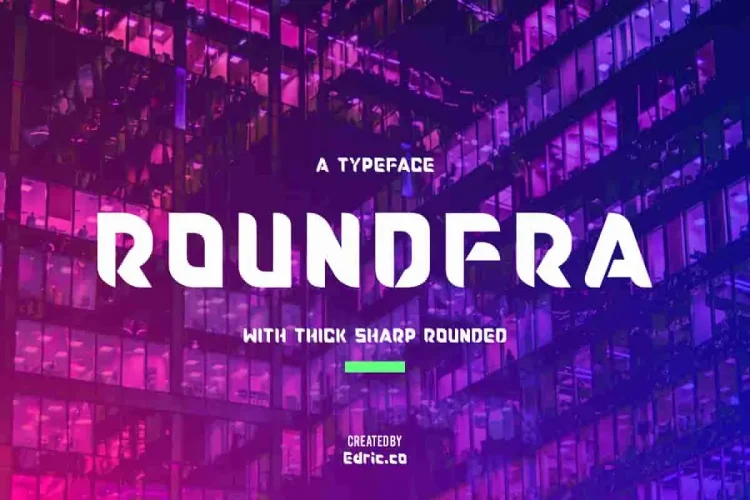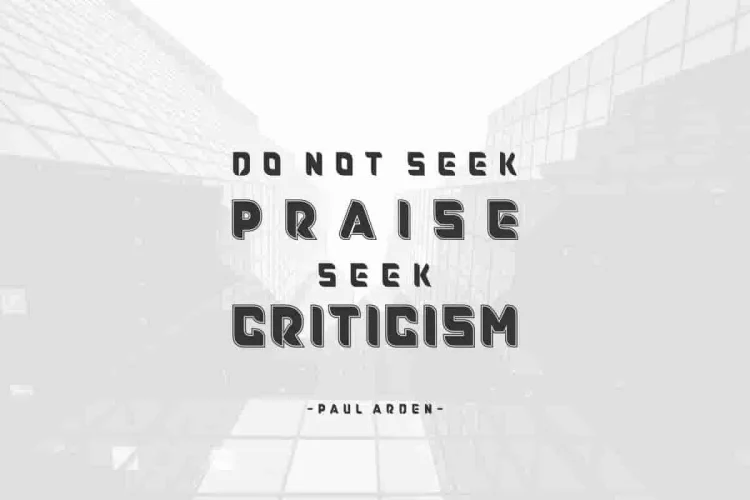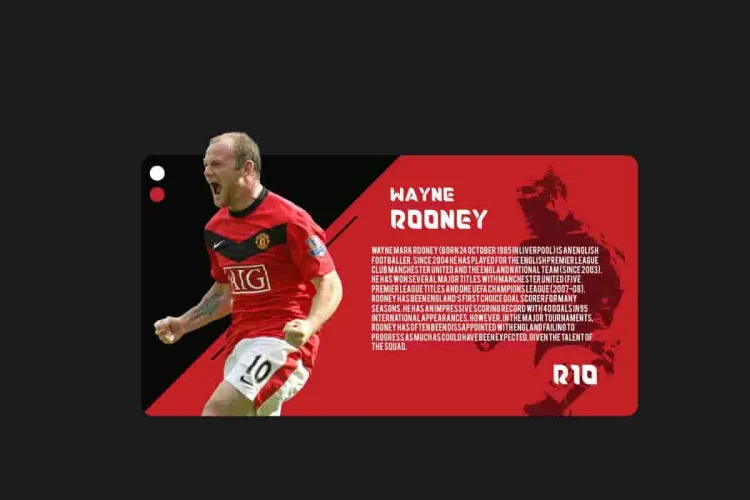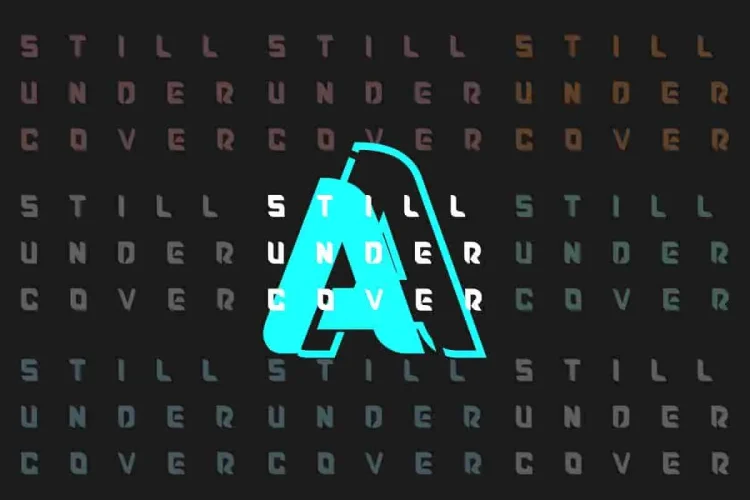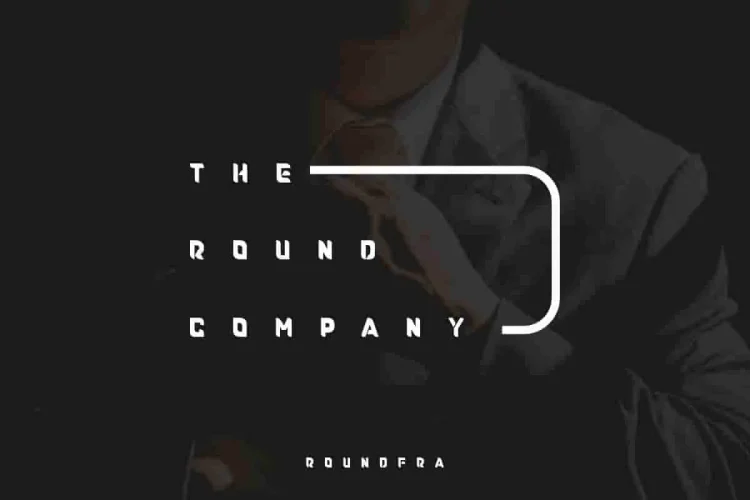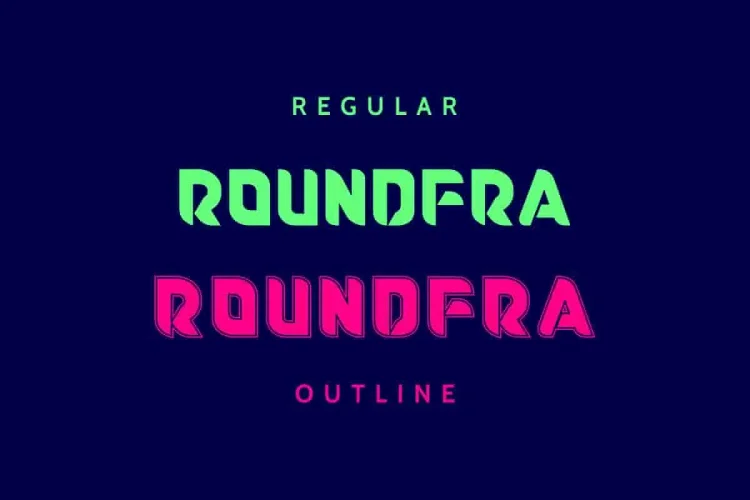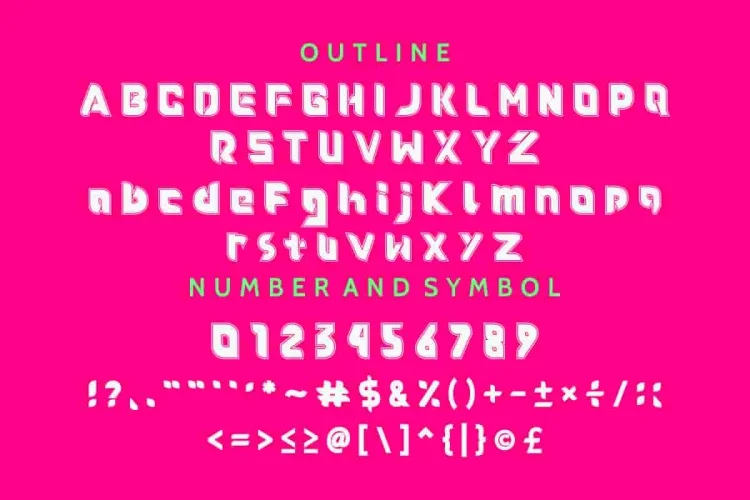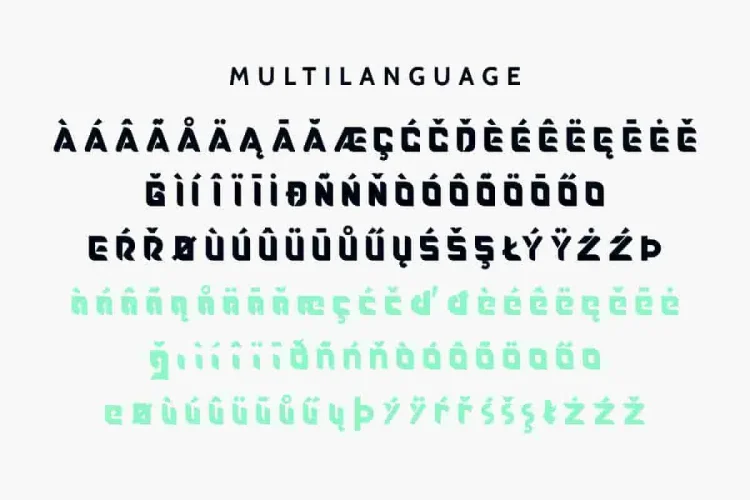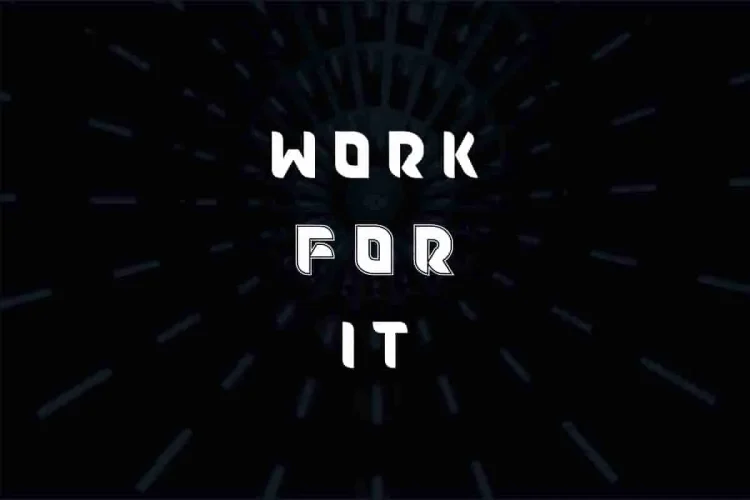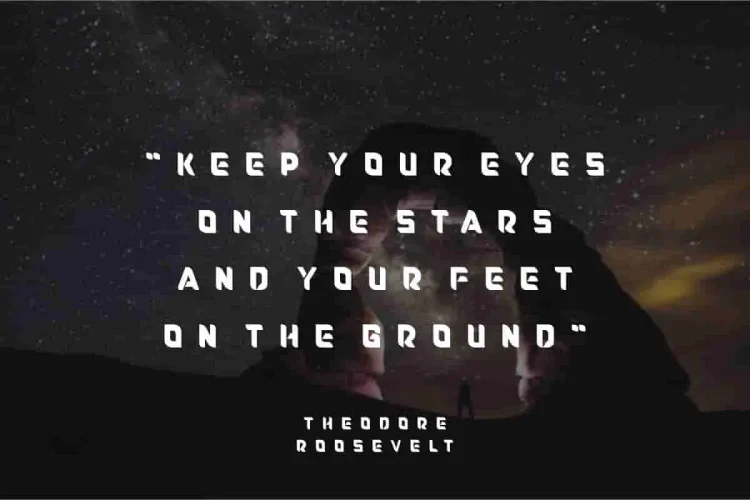
Roundfra Modern Display Font
Hi Everybody! Introducing our newest font : Roundfra ! First crafted in 2017 and now fully modernized, this font combines sporty energy with futuristic style, making it perfect for bold design projects.
Roundfra is a modern Display Sans Serif font designed to turn heads. Its clean lines, smooth curves, and geometric form give it a fresh, energetic feel. Because of its sharp structure, this font looks strong and fast—making it ideal for sports branding, digital posters, urban fashion, esports graphics, and more.
What’s more, Roundfra comes in multiple weights and styles. You can choose the Regular version for clean layouts, while the Bold variant brings power and intensity to your headlines. Meanwhile, its slightly rounded corners add a unique softness, helping it feel modern yet friendly. As a result, it stands out while still being approachable.
Not only that, Roundfra offers great readability, even at smaller sizes. Therefore, it’s just as effective for editorial titles as it is for massive banners. Whether you’re creating a sleek brand identity or dynamic social media graphics, Roundfra adapts effortlessly. Its bold style ensures your message always looks sharp and professional.